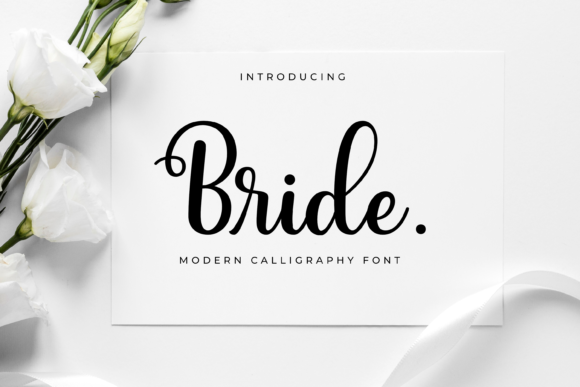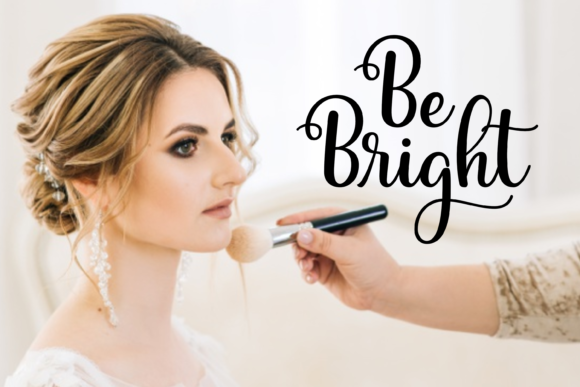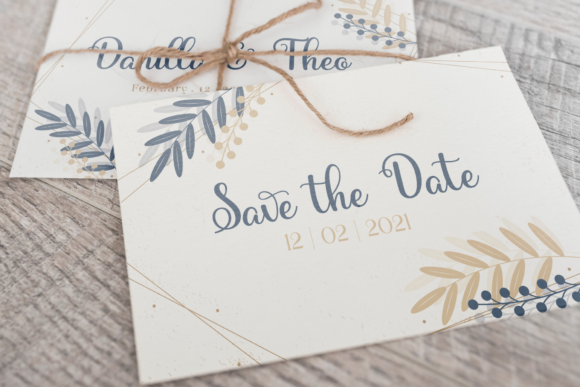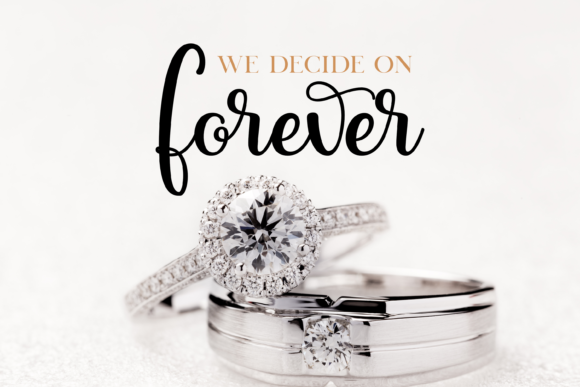
About Bride Font
Introducing Bride: The Modern, Delicate, and Incredibly Beautiful Handwritten Font
Prepare to be swept off your feet by Bride, a font that combines modern elegance with delicate beauty in its handwritten style. With its authentic feel, Bride will captivate your heart and become the perfect choice for creating gorgeous wedding invitations, beautiful stationary art, eye-catching social media posts, and cute greeting cards. Embrace the charm of Bride as you bring your creative visions to life with a touch of romance and sophistication.
Bride’s modern and delicate appeal brings a sense of refinement and grace to your designs. Its handwritten letterforms flow with a seamless beauty, making your text exude a touch of sophistication and authenticity.
As an incredibly beautiful font, Bride becomes the ideal companion for creating wedding invitations and stationary art. Its delicate nature adds a romantic flair that sets the perfect tone for special occasions.
The font’s versatility shines through as it seamlessly complements various design themes. Whether you’re crafting eye-catching social media posts or cute greeting cards, Bride enhances your projects with its exquisite touch.
Embrace the authenticity of Bride as you embark on your creative journey. Let it be the font that adds a touch of elegance and charm to your designs, creating a sense of beauty and allure in every project.
As you explore the possibilities of Bride, you’ll find it to be a font that elevates your designs with ease. Its modern, delicate, and incredibly beautiful handwritten beauty transforms your work, ensuring that your creations leave a lasting impression.
So, let Bride be the font that steals your heart. Embrace its authentic feel and fall in love with its delicate beauty. Watch as your wedding invitations, stationary art, social media posts, and greeting cards come to life with romance and sophistication. With Bride as your go-to font, your designs will resonate with grace and allure, captivating your audience and leaving a lasting impression. Embrace the beauty of Bride and create designs that are truly exquisite and unforgettable!